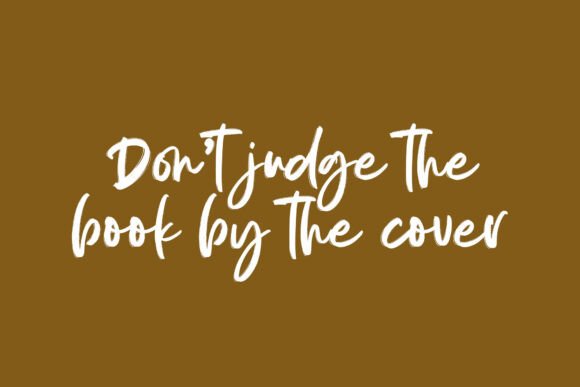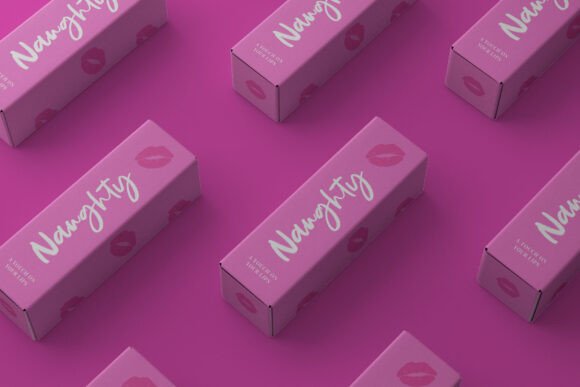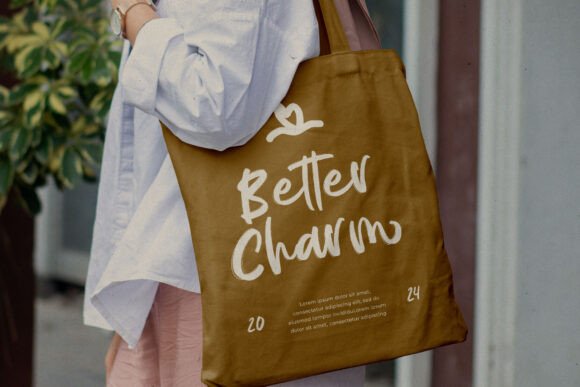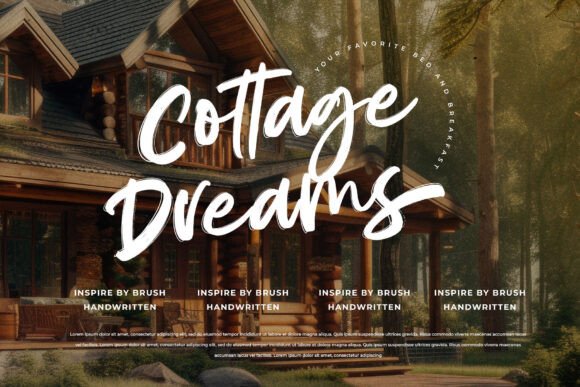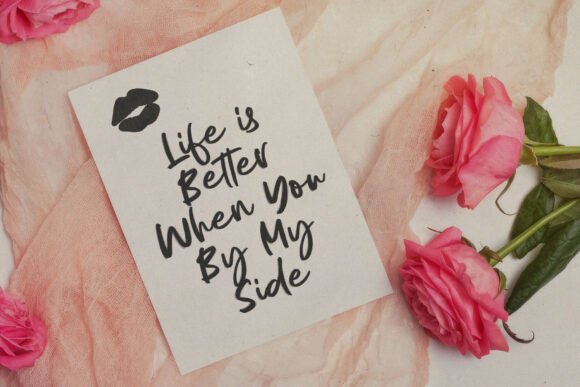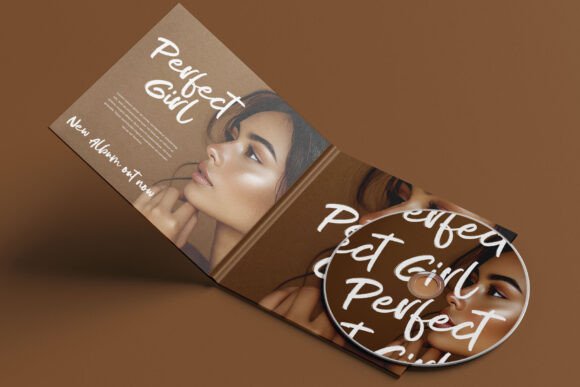
The Sweet Spot: Discovering Garemy Font
I still remember the design project that led me to Garemy Font. I was working on a whimsical wedding invitation, and my client specifically asked for a ‘romantic and joyful’ vibe. As I scrolled through my font library, I realized I needed something special – a font that could convey warmth, playfulness, and love. That’s when I stumbled upon Garemy, a sweet and cursive handwritten font that instantly stole my heart.
What I Love About Garemy ✨
- ✅ Elegant yet casual: Garemy strikes the perfect balance between sophistication and friendliness.
- 💕 Romantic and whimsical: This font adds a touch of magic to any design, making it perfect for wedding invitations, greeting cards, and more.
- 🌈 Versatile: Garemy looks stunning on a variety of design materials, from digital graphics to print materials.
- 👍 Highly legible: Despite its cursive nature, Garemy remains easy to read, even at smaller font sizes.
While Garemy is an amazing font, it’s not without its limitations. For instance:
- ⚠️ Limited character set: Garemy might not have an extensive character set, which could limit its use in certain projects requiring a wide range of special characters.
- 😐 Not ideal for body text: Due to its cursive nature, Garemy might not be the best choice for lengthy paragraphs of text.
The Story Behind Garemy: Designer Inspiration
Garemy was designed with love and care by a talented type designer who aimed to create a font that would evoke feelings of joy and romance. The designer’s inspiration came from traditional handwritten scripts, combined with a modern twist to make it fresh and unique.
| Author | RantauType |
Q: What type of projects is Garemy best suited for?
A: Garemy is perfect for projects that require a romantic and joyful touch, such as wedding invitations, greeting cards, and social media graphics.